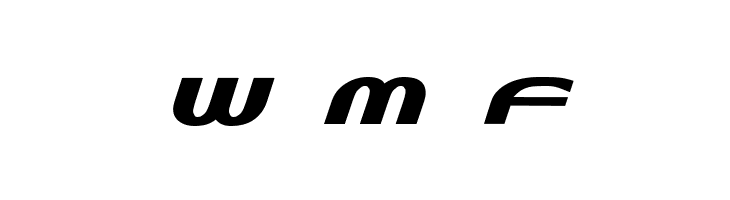
D3 Archism Font
A bold, futuristic font with a geometric and modern design.
D3 Archism Italic Font
A modern, italic font with a dynamic and sleek design.